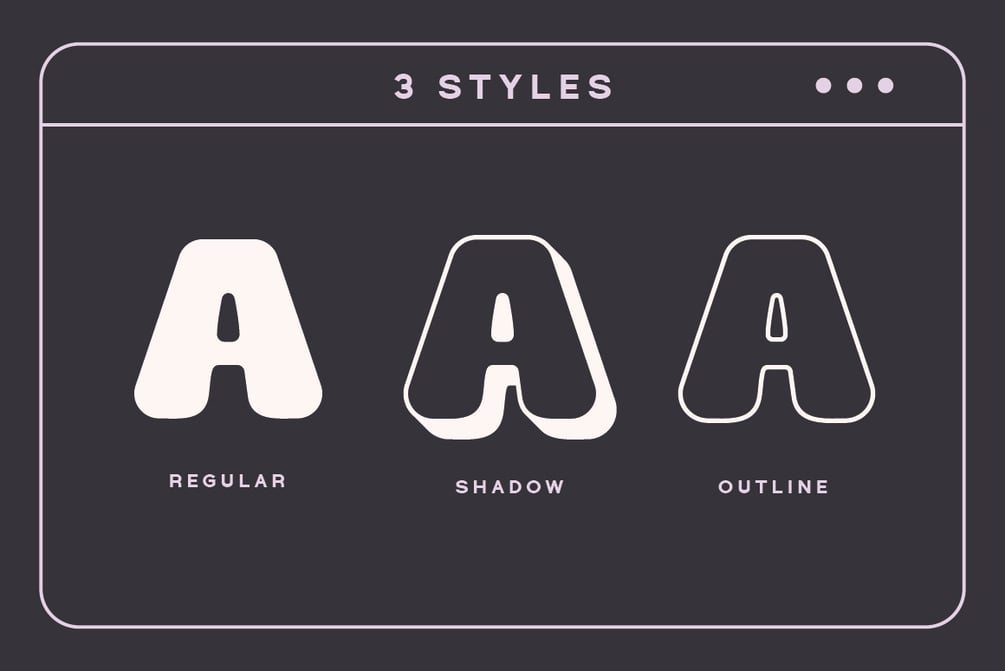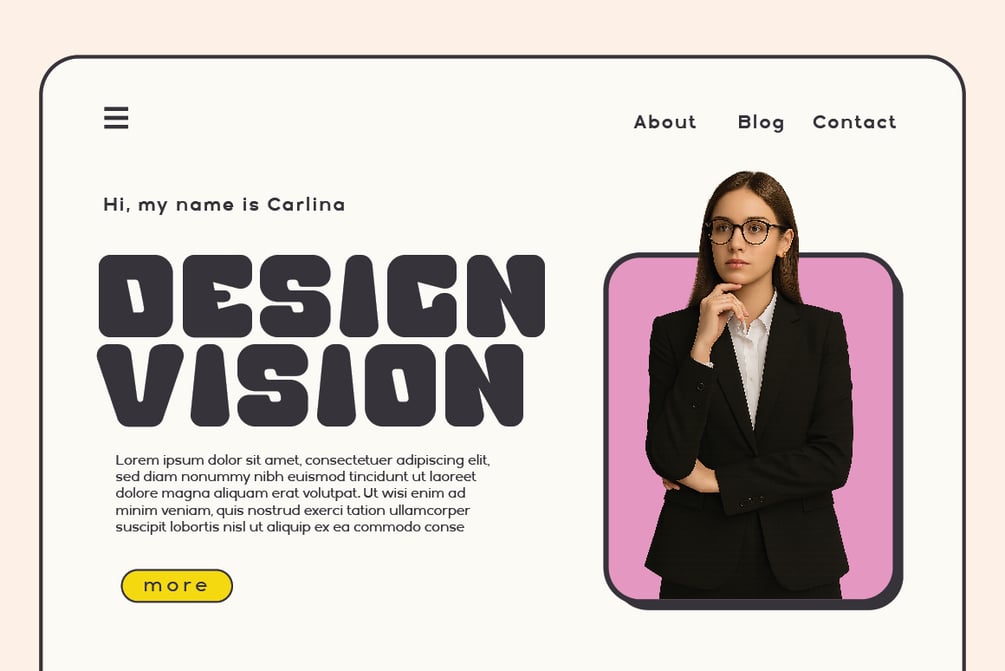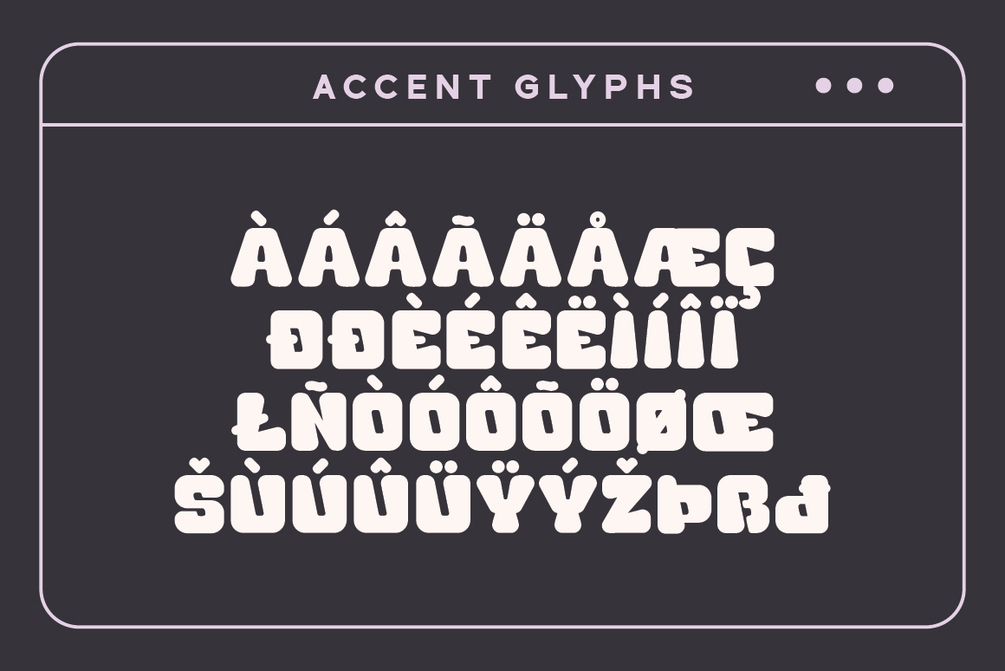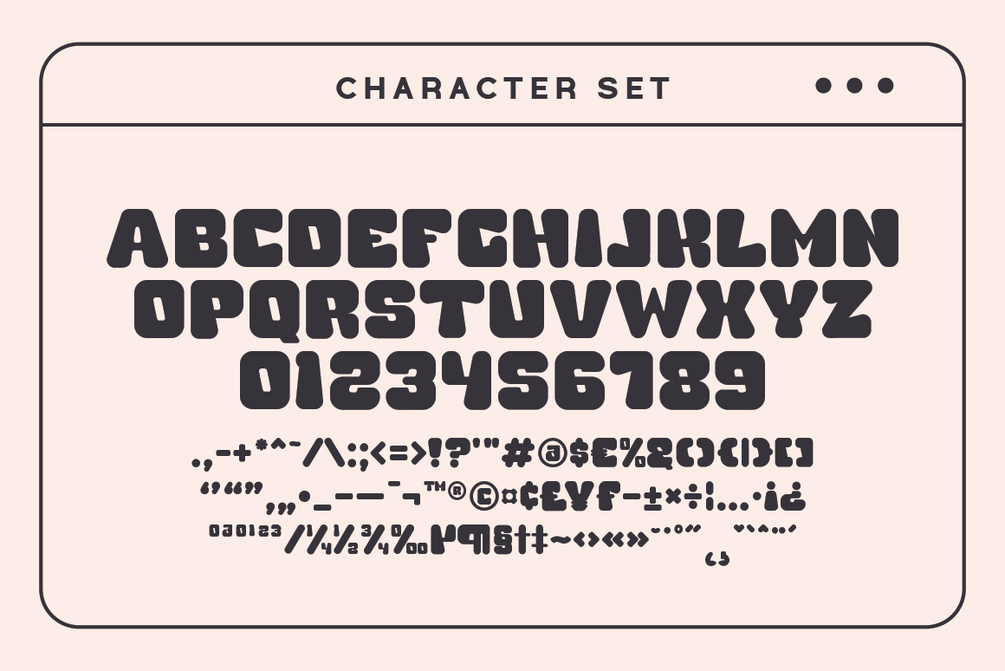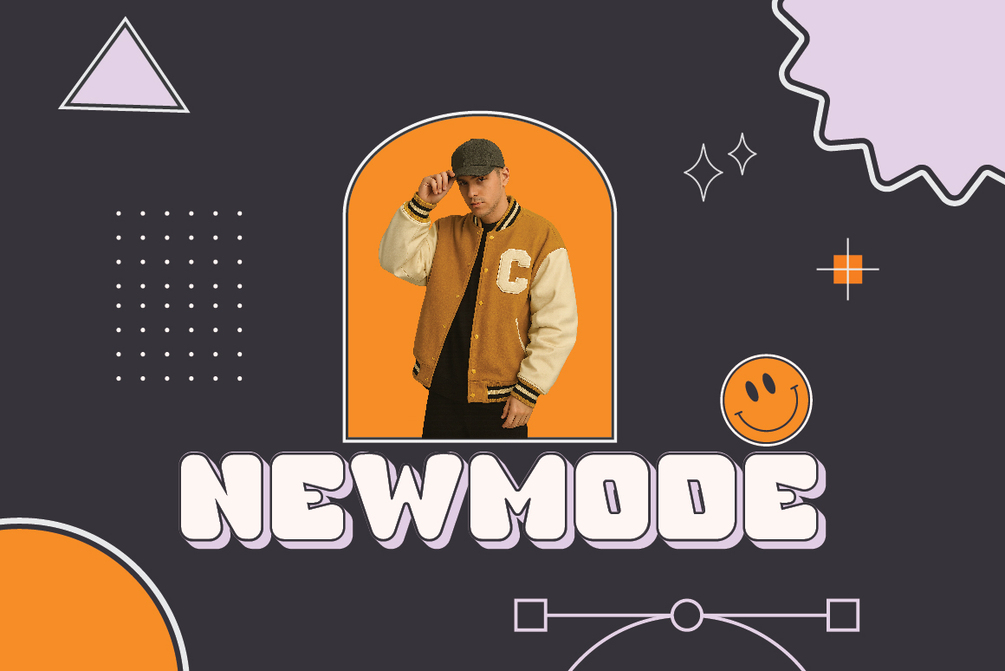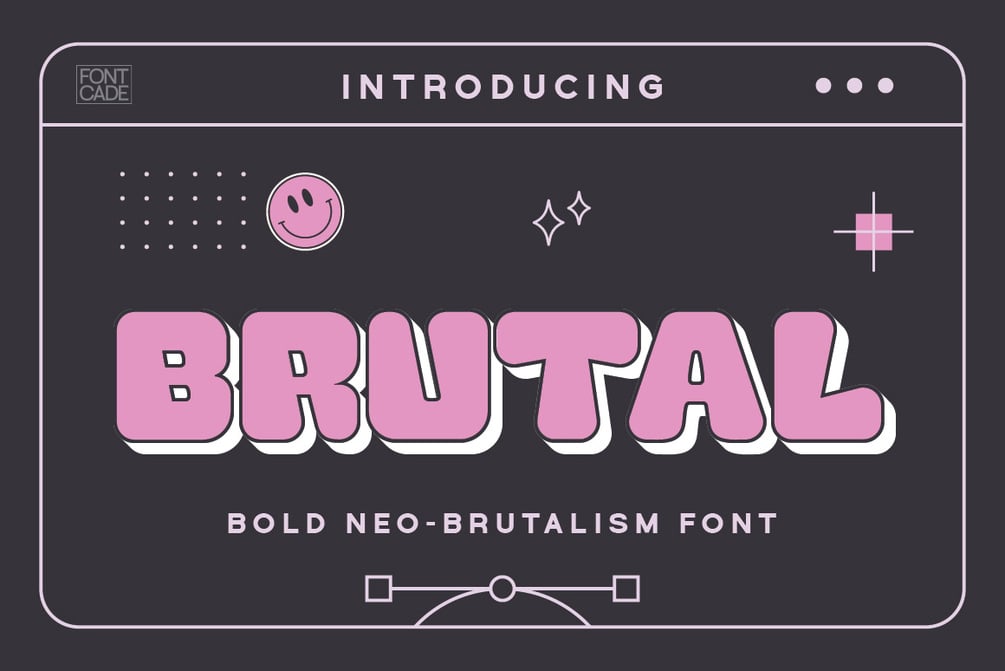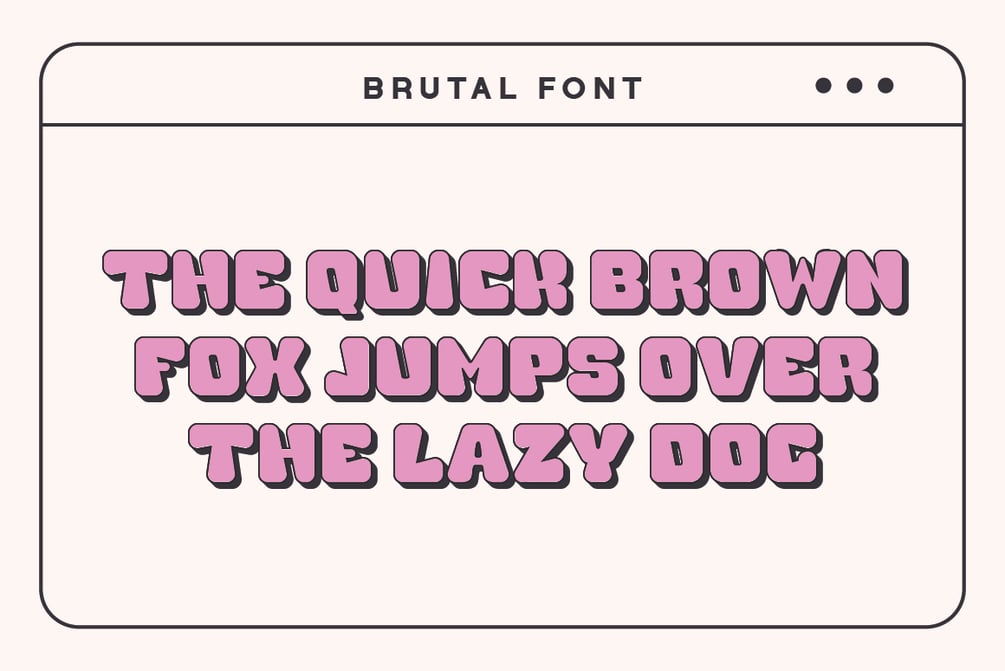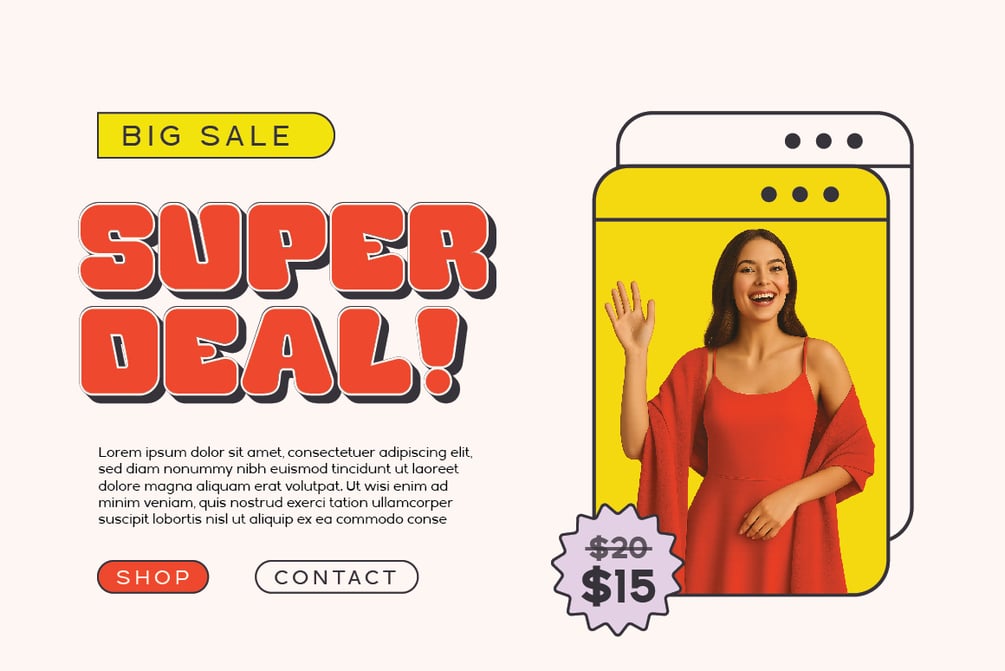
Brutal Font
Brutal font is a bold and playful display font with chunky, rounded shapes. Its loud and fun look makes it a great match for Neo Brutalism design. Perfect for bold posters, web layouts, and modern, expressive branding.
- 3 Fonts: Regular, Outline & Shadow
- All Caps, Numeral & Punctuation